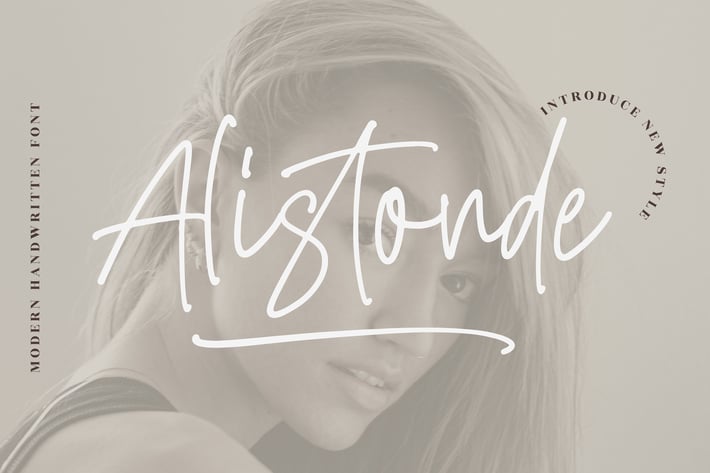
Alistonde Monoline Font
Alistonde is a modern monoline handwritten font that exudes simplicity, warmth, and a touch of sophistication. Designed with clean, fluid strokes and a relaxed character, it perfectly blends a casual handwritten feel with professional elegance.
Smooth and consistent monoline strokes
Natural handwritten rhythm with excellent readability
Modern, relaxed, and effortlessly stylish — Alistonde brings a natural handwritten charm to any creative project.